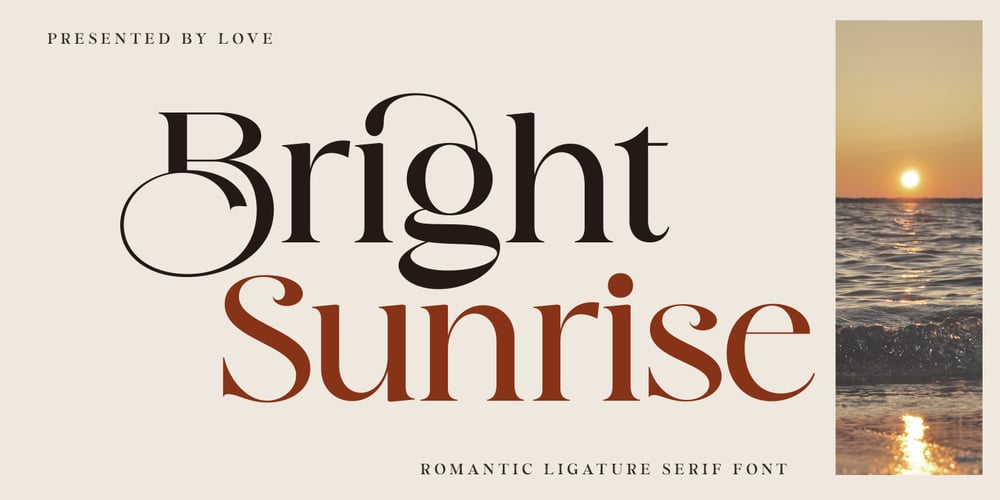
Bright Sunrise
Bright Sunrise font
Bright Sunrise Font Family was designed by Muhammad Sirojuddin and published by Lettersiro. Bright Sunrise contains 1 styles and family package options. Bright Sunrise is a romantic serif font created with joy and love. This font makes a harmonious combination for your modern and classic layouts. Perfect for any luxury design like hotel logo, restaurant menu, restaurant poster or web, wedding invitation, and many others